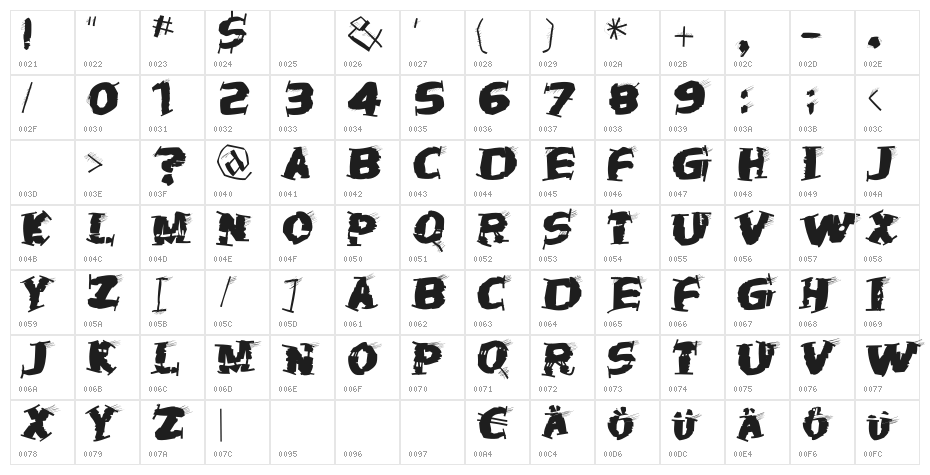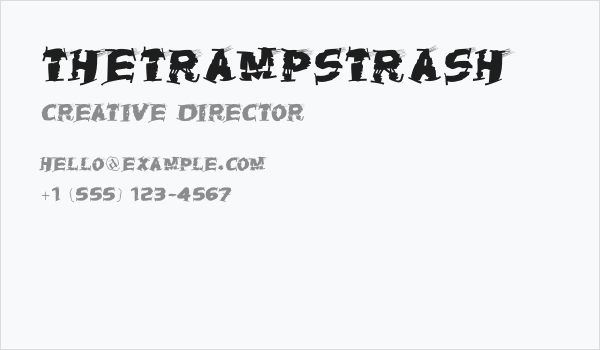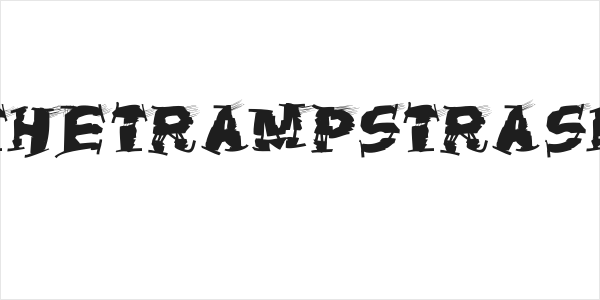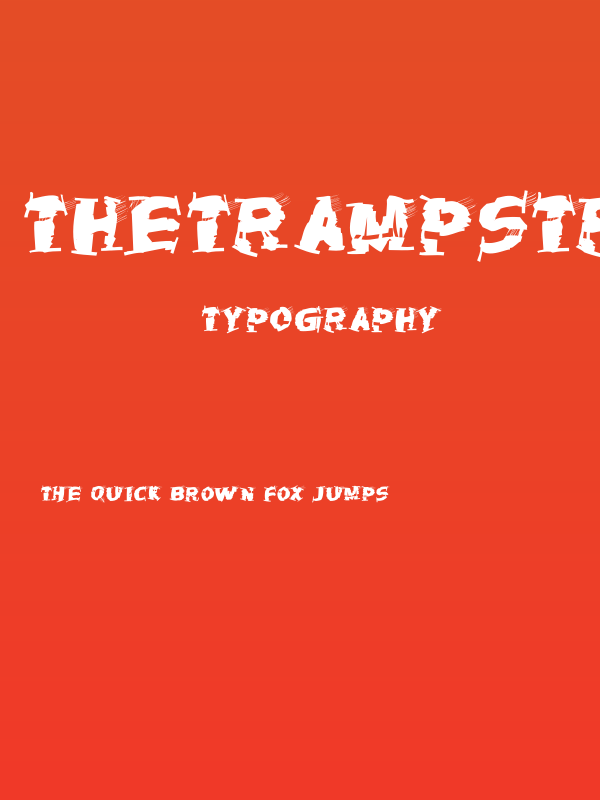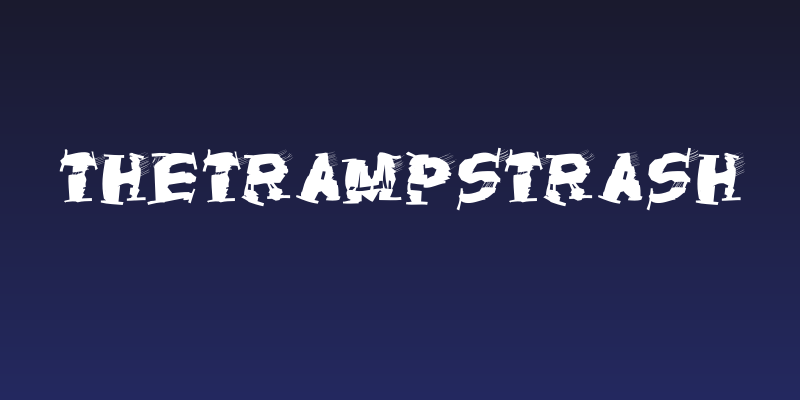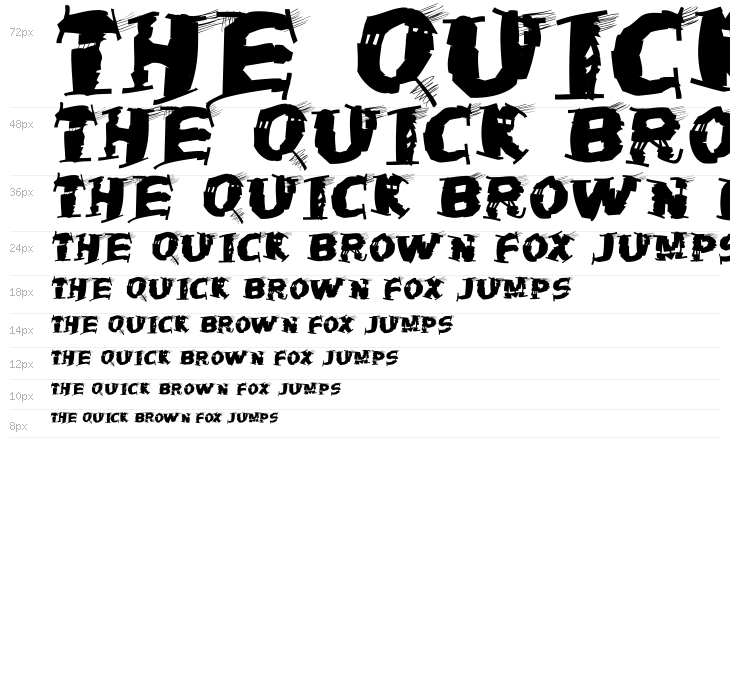
TheTrampsTrash Font
TheTrampsTrash Description
This font exudes a rugged and distressed aesthetic, characterized by its bold, jagged edges and irregular shapes. The letters appear as if they have been roughly painted or scratched, giving them a raw, edgy feel. The uppercase and lowercase letters maintain a consistent style, with each character displaying unique imperfections that add to the overall grunge effect. Numbers and special characters follow the same design principles, ensuring a cohesive look across all glyphs. This font's chaotic and rebellious nature makes it stand out, perfect for projects that require a strong, unconventional visual impact.
Overall StyleGrunge, Edgy
Use CaseLogos, Posters, Album covers
Proposed ProjectsIdeal for music album covers, streetwear branding, skateboarding graphics, and rebellious-themed posters.